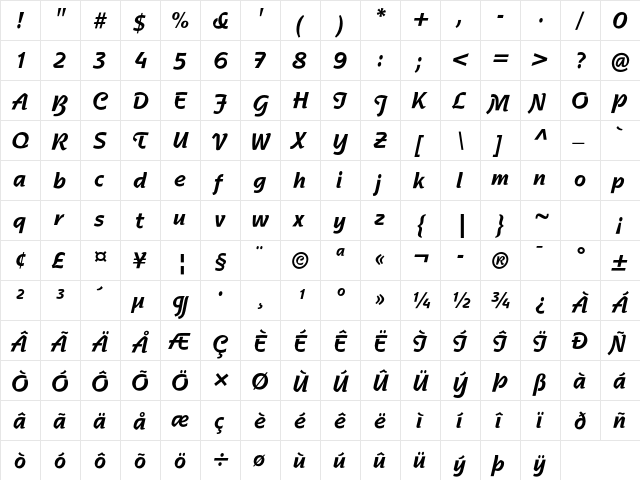
Agfa Nadianne Cond Std Bold
Design Context for Agfa Nadianne Cond Std Typeface
Agfa Nadianne Cond Std offers clean, dependable letterforms without strong stylistic allegiance, making it a practical choice for designers who need flexibility. Its bold stroke weight gives it real presence on the page. The condensed width makes it efficient for tight spaces without sacrificing legibility.